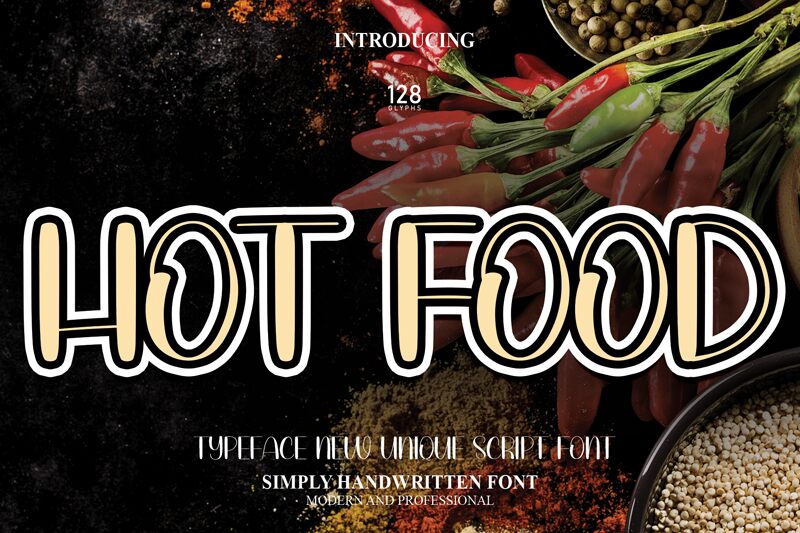
Hot Food
Hot Food, designed by Scratchones, is a semi-light handwritten font that exudes a sense of warmth and approachability. Its aesthetic appeal lies in its casual yet legible script, reminiscent of a friendly note left on your kitchen counter. With each stroke carrying an organic irregularity, Hot Food brings an artisanal touch to any project it graces.
The font's semi-light weight offers both readability and a delicate finesse, making it versatile for diverse creative applications. Whether it's invoking the cozy atmosphere of a café menu, adding personality to packaging design, or crafting engaging social media graphics, Hot Food stands out for its inviting charm and stylish informality.
Embrace the handwritten authenticity of Hot Food to convey messages with a personal touch and artistic flair.
The font's semi-light weight offers both readability and a delicate finesse, making it versatile for diverse creative applications. Whether it's invoking the cozy atmosphere of a café menu, adding personality to packaging design, or crafting engaging social media graphics, Hot Food stands out for its inviting charm and stylish informality.
Embrace the handwritten authenticity of Hot Food to convey messages with a personal touch and artistic flair.